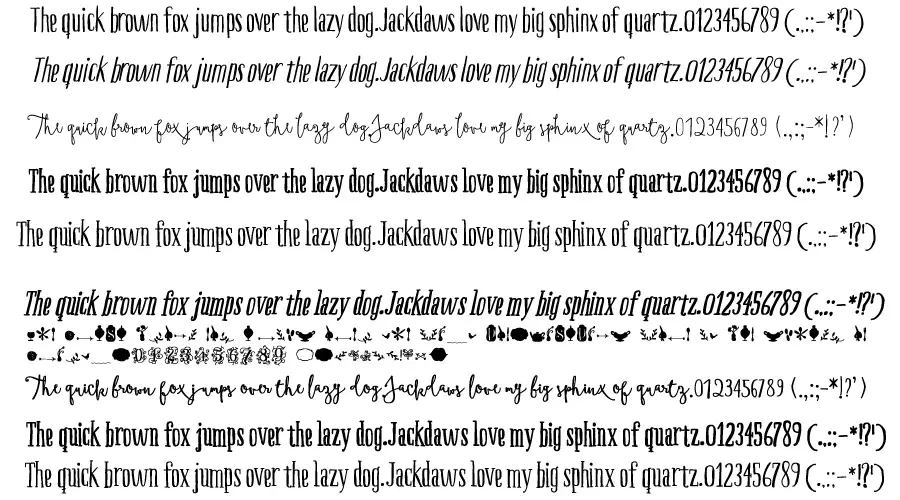
Today we are excited to introduce a special handmade font designed by a Chilean type designer. The Boho typeface by Latinotype Foundry is a script font designed and developed by Guisela Mendoza in 2014-2015. The Boho font was inspired by a bohemian girl with a free and creative spirit.
Boho is Coto Mendoza’s first script font family. It is based on gestural calligraphy and written with a Cola pen. In her previous work, Macarons, she was introduced to gestual strokes applied to font design.
The font family has 26 styles and variations. Mendoza created the font using calligraphic techniques, which gave it a handwritten look. It features a wide range of glyphs (count: 617) to create an eclectic and expressive typeface. In total, there are four subfamilies in the font family: Script, Sans, Serif, and Line. These subfamilies include variants with teardrop terminals. In addition, ornaments and dingbats are included. It has a retro feel but is still modern and up-to-date.
The typeface features a hand-drawn style with a relaxed, casual feel that is suitable for creative projects or use in branding. The Boho typeface comes in four different weights and can be used for a wide range of things, like advertising, print media, or web fonts.
The font is designed in a brush script style with a vintage feel. It’s suitable for logos, branding, and textiles. Mendoza wanted the typeface to be versatile and easy to use, so she designed it with many applications in mind, including signage, menus, display type, and web fonts.
The font family works well with illustrations. You can use it for hand-drawn titles and headlines. With this font family, you can get letters that look like they were handwritten.
| Name | Boho Font |
| Style | Calligraphy |
| Designer | Guisela Mendoza |
Boho Font Family (Includes Total 26 Typeface)